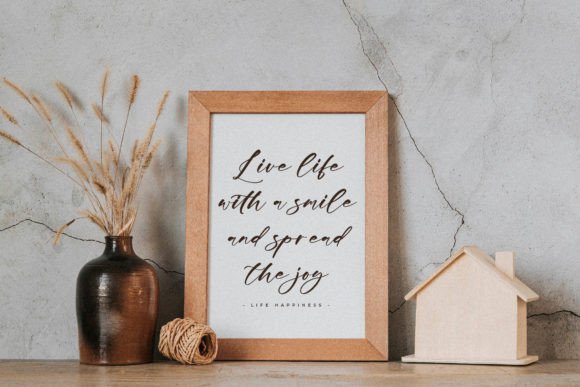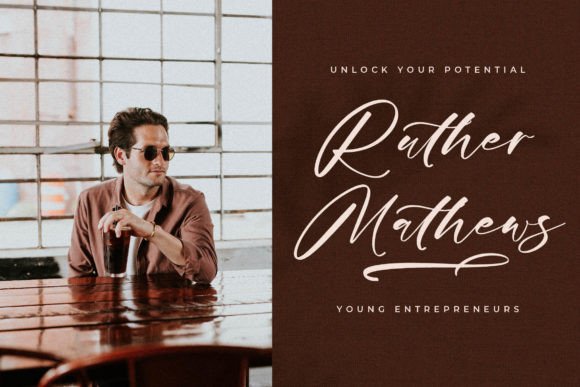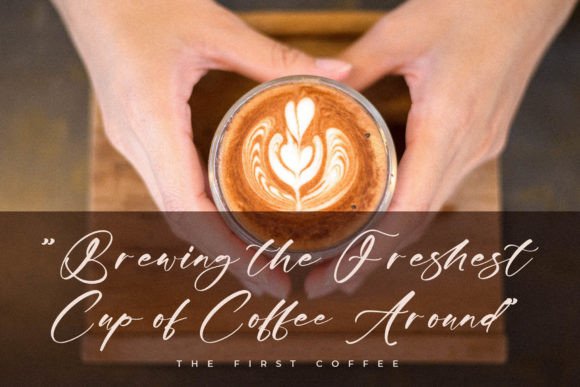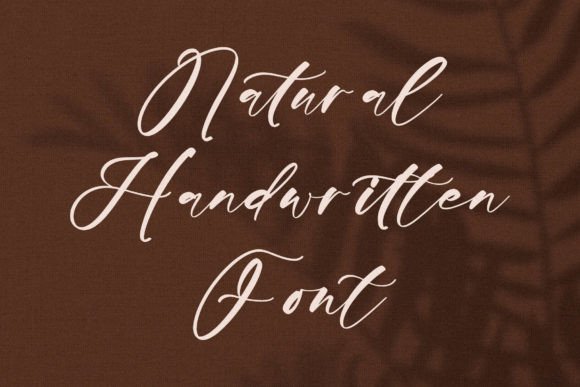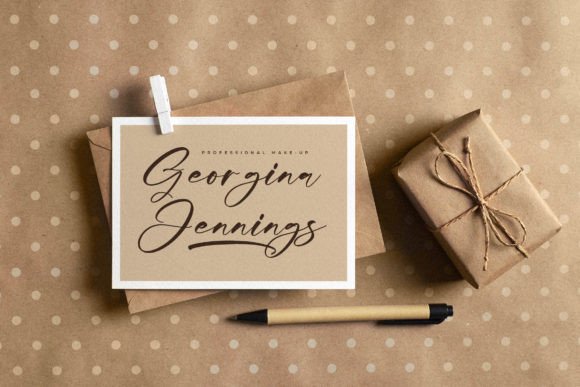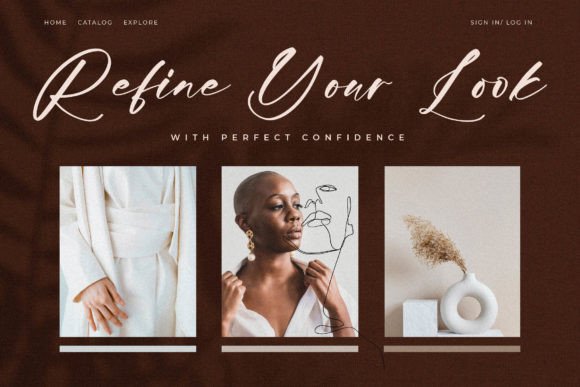
The Eathonya Font: A Stunning Natural Handwritten Font for Creative Projects
I’ll never forget the moment I stumbled upon the Eathonya font while working on a branding project for a small business. I was struggling to find the perfect font that would capture the essence of the brand – natural, elegant, and friendly. That’s when I discovered Eathonya, a stunning natural handwritten font that instantly resonated with the project’s vibe. In this article, I’ll share my experience with Eathonya, its features, and how to make the most of it in various design platforms.
An Honest Review of Eathonya Font
What I Love About Eathonya ✨
- 💫 Unique and elegant handwritten style that adds a personal touch to any design
- ✅ Highly versatile and suitable for a wide range of projects, from logos and branding to homeware designs and product packaging
- 🎨 Beautifully crafted with attention to detail, making it perfect for high-end designs
- 📚 Extensive character set, including OpenType features, glyphs, and stylistic alternates
- ⚠️ Some users may find the font a bit too delicate for certain design applications
- ⚠️ Limited availability of condensed or italic versions, which may limit its use in certain contexts
The Backstory of Eathonya Font
Eathonya was designed by a talented type designer who aimed to create a font that would capture the essence of natural elegance. The font’s name, Eathonya, is derived from the Greek words “eathos” meaning natural and “onya” meaning elegance. The designer’s inspiration came from traditional handwritten scripts, combined with modern typography techniques to create a unique and versatile font.
Q: What is the Eathonya font suitable for?
A: Eathonya is suitable for a wide range of projects, including logos, branding, homeware designs, product packaging, mugs, quotes, posters, shopping bags, t-shirts, book covers, name cards, invitation cards, greeting cards, labels, photography, watermark, and special events.
Q: Is Eathonya a difficult font to read?
A: Eathonya is a handwritten font that’s designed to be elegant and refined. While it may be a bit more delicate than other fonts, it’s still highly legible and suitable for body text and headlines.